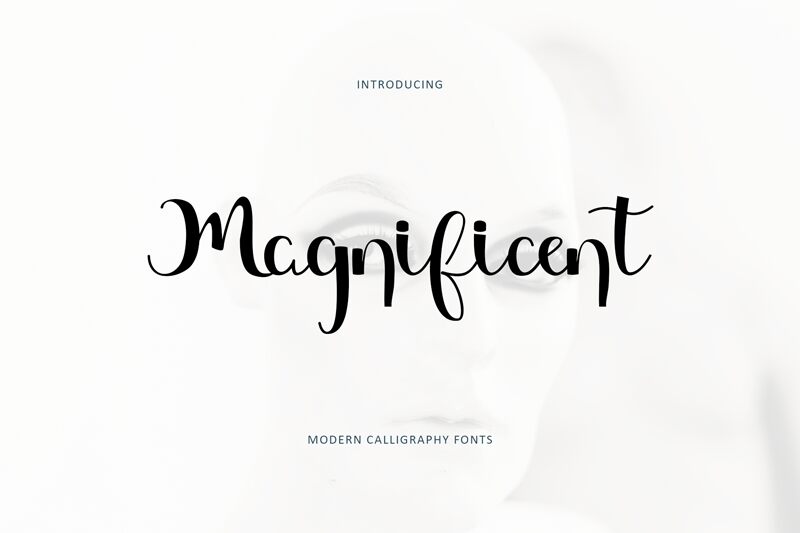
Magnificent, a captivating script font crafted by Deniz86, exudes a sense of elegance and artistry. This handwritten masterpiece boasts fluid strokes and graceful curves, evoking a timeless charm that captivates the eye. Each character is imbued with a unique personality, seamlessly blending sophistication and whimsy to create a truly mesmerizing visual experience.
Magnificent's versatility shines through its ability to elevate a wide range of design projects. From sophisticated event invitations and exquisite product labels to eye-catching branding and captivating editorial layouts, this font's distinctive flair can add a touch of refinement and individuality to any design. Whether you're seeking to create a memorable impression or infuse your work with a touch of timeless elegance, Magnificent by Deniz86 is a font that truly lives up to its name.